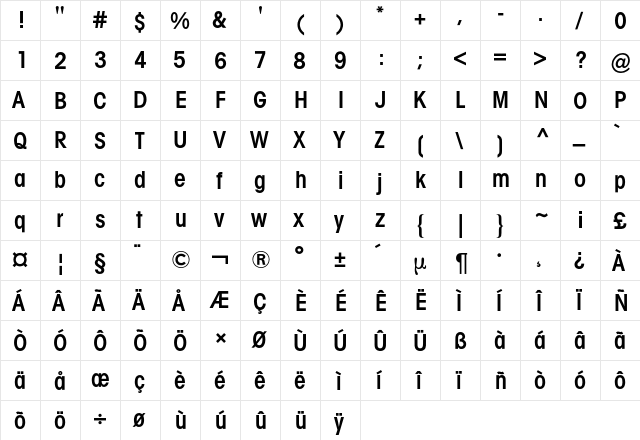
Avant Garde Condensed BQ Regular
Design Context for Avant Garde Condensed BQ Typeface
Avant Garde Condensed BQ is a composed and adaptable typeface that performs quietly and consistently across a wide range of design contexts. The condensed width makes it efficient for tight spaces without sacrificing legibility.